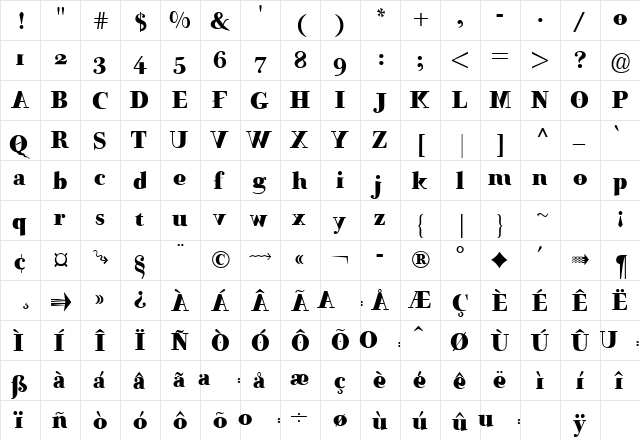
Mutoni Bold
Design Context for Mutoni Typeface
Mutoni offers clean, dependable letterforms without strong stylistic allegiance, making it a practical choice for designers who need flexibility. The heavy weight commands attention and anchors typographic hierarchies.
Pro Tip: Use Mutoni in both headline and body roles to test its range before committing to a single application.